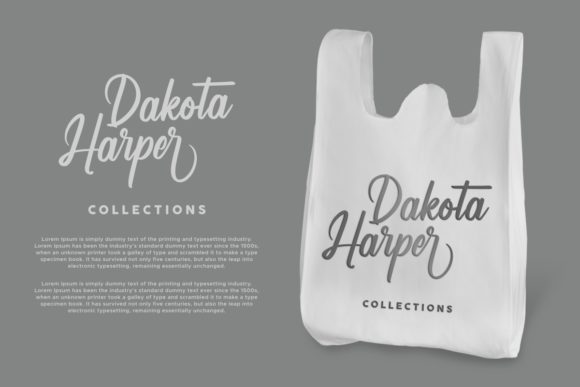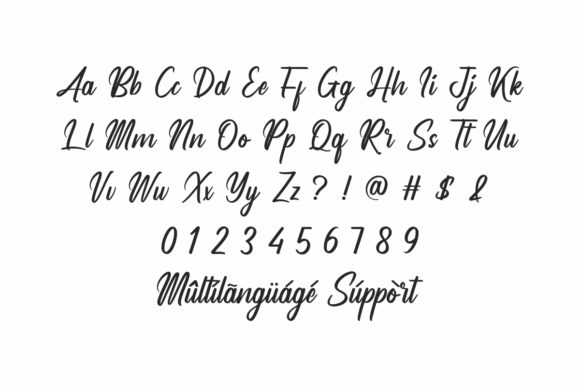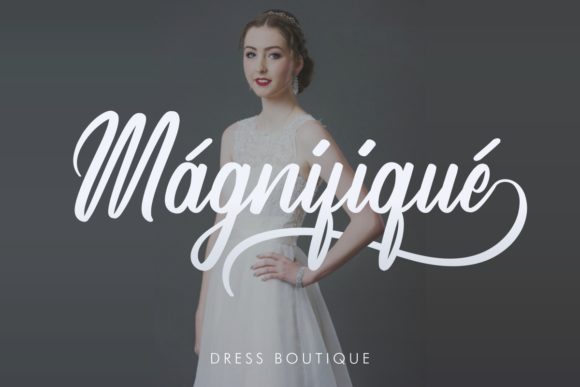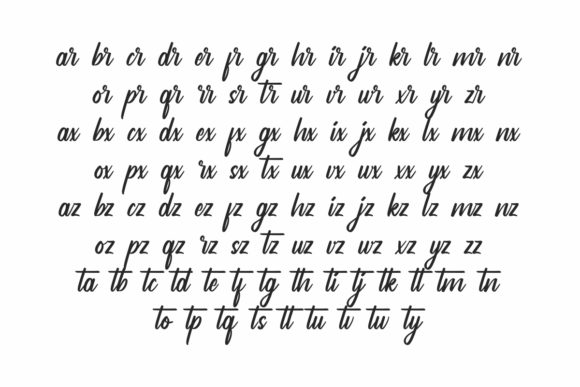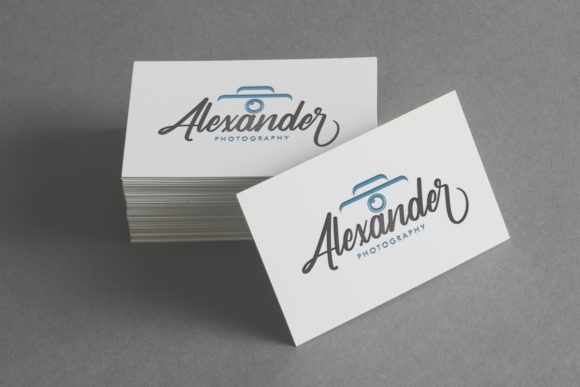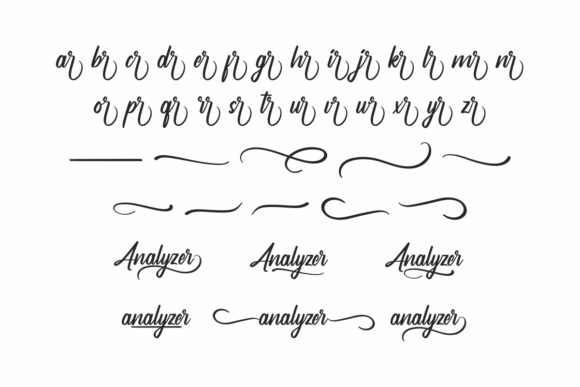
Introducing Analyzer Font: Elevate Your Designs with Elegance and Personality
In the world of design, fonts play a crucial role in conveying the tone and style of a project. For those seeking a unique and elegant handwritten font, Analyzer Font is an exceptional choice. This beautiful font is perfect for a variety of designs that require a personalized touch, including wedding invitations, thank you cards, weddings, greeting cards, logos, and more.
What Makes Analyzer Font Special?
Analyzer Font stands out with its distinctive handwritten style that exudes elegance and sophistication. Its unique charm makes it an ideal choice for designers and crafters looking to add a personal touch to their projects. Whether you’re working on a wedding invitation, a logo, or a greeting card, Analyzer Font is sure to make your design stand out.
One of the key benefits of Analyzer Font is its versatility. It can be used on a wide range of designs, from formal events like weddings to casual projects such as greeting cards and logos. The font’s elegant style ensures that it complements any design, making it a valuable addition to your font collection.
Analyzer Font is PUA (Private Use Area) encoded, which means that accessing all the glyphs and swashes is effortless. PUA encoding allows designers to access a wide range of characters and symbols that are not available in standard fonts. This feature makes Analyzer Font incredibly user-friendly, saving you time and effort in your design process.
Analyzer Font is a dream come true for designers and crafters who strive to create unique and personalized designs. With this font, you can add a touch of elegance and sophistication to your projects, making them truly special. Whether you’re a professional designer or a hobbyist crafter, Analyzer Font is an excellent choice for anyone looking to elevate their designs.
Use Cases for Analyzer Font
Analyzer Font can be used in a variety of projects, including:
- Wedding invitations and wedding-related designs
- Thank you cards and greeting cards
- Stationery and letterheads
Why Choose Analyzer Font?
With so many fonts available, why choose Analyzer Font? Here are a few reasons:
- Unique and elegant handwritten style
- Versatile and suitable for a wide range of designs
- User-friendly and easy to use
- Perfect for designers and crafters looking for a personalized touch
Analyzer Font is a beautiful and elegant handwritten font that is perfect for designers and crafters looking to add a personal touch to their projects. With its unique style, versatility, and PUA encoding, it’s an excellent choice for a wide range of designs. Whether you’re working on a wedding invitation, a logo, or a greeting card, Analyzer Font is sure to elevate your design and make it stand out.